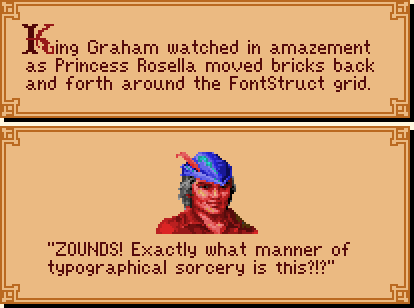
Initials used with the non-speech text in King's Quest V: Absence Makes The Heart Go Yonder!, (C) 1990 Sierra On-Line. These letters were not generated using an in-game font; they were actually pre-rendered static images within the game's art assets, used in conjunction with the Sierra text font Font.004. While the letters were centered within the 16x15 sprites, the I and J were changed to proportional spacing for use with other fonts.